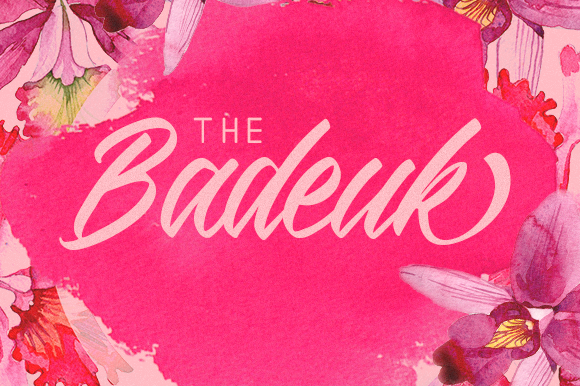
Introducing The Badeuk Font: A Stroke of Creative Genius to Elevate Your Design Endeavors
In the realm of digital artistry where words ignite imagination and visual masterpieces take form, there lies a font family of exceptional allure—The Badeuk Font. This exquisitely crafted script font, conjured by the visionary minds at No Gravity Type, embodies the essence of beauty, elegance, and limitless creativity.
With its dynamic strokes and breathtaking style, The Badeuk Font empowers you to effortlessly replicate the art of hand-lettering. Its every curve and flourish exudes a natural charm that will add a touch of sophistication and individuality to your design projects.
Whether you're a seasoned graphic designer seeking to elevate your client work or an aspiring artist yearning to express your unique style, The Badeuk Font is your perfect companion. Its versatility knows no bounds; from captivating logos that leave a lasting impression to stunning invitations that evoke a sense of wonder, The Badeuk Font will transform your creative visions into tangible works of art.
Immerse yourself in a world where imagination reigns supreme, where every word you type carries the weight of your artistic expression. Unleash the boundless potential of The Badeuk Font and watch as your designs flourish with unmatched elegance and grace.